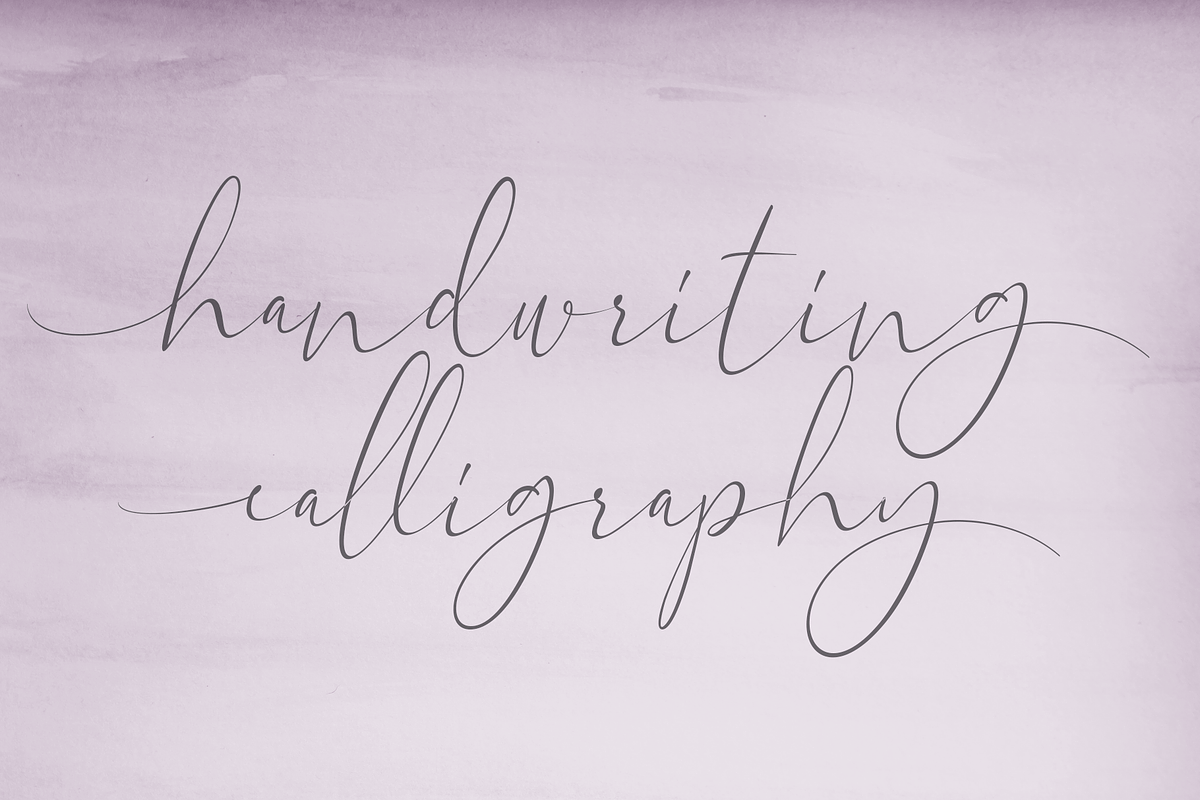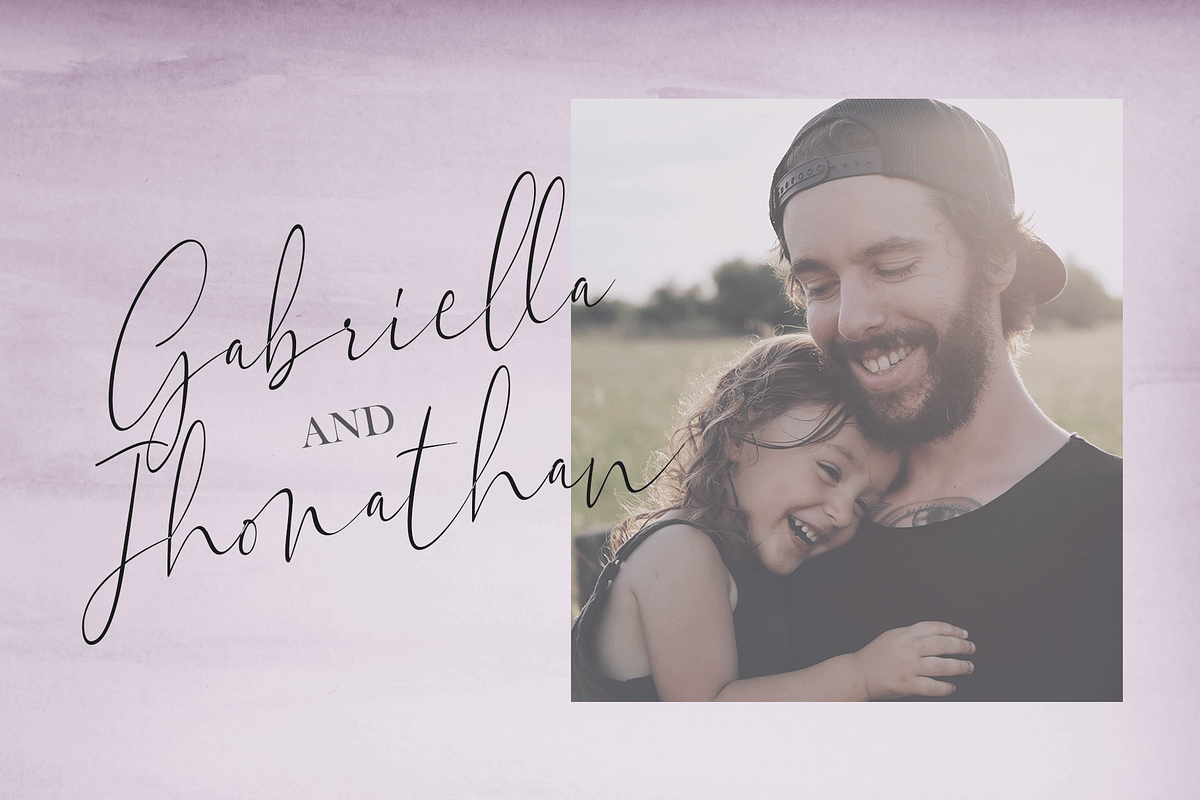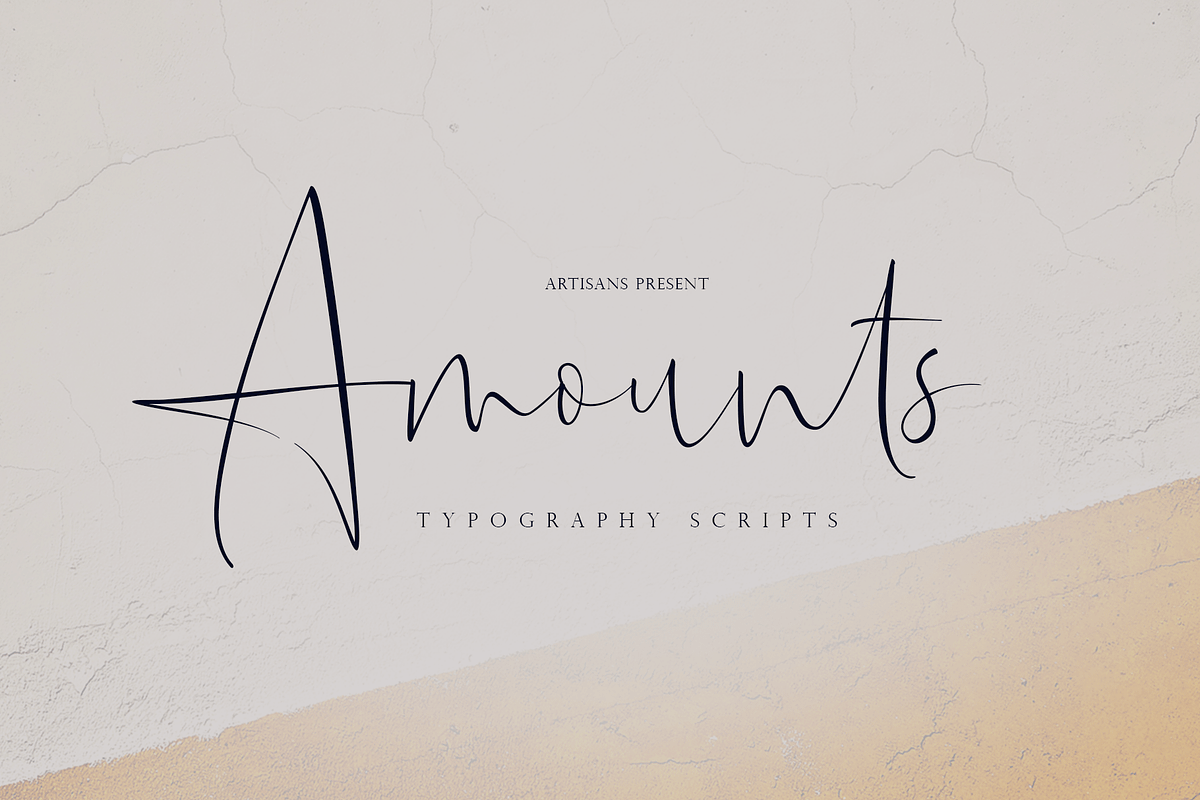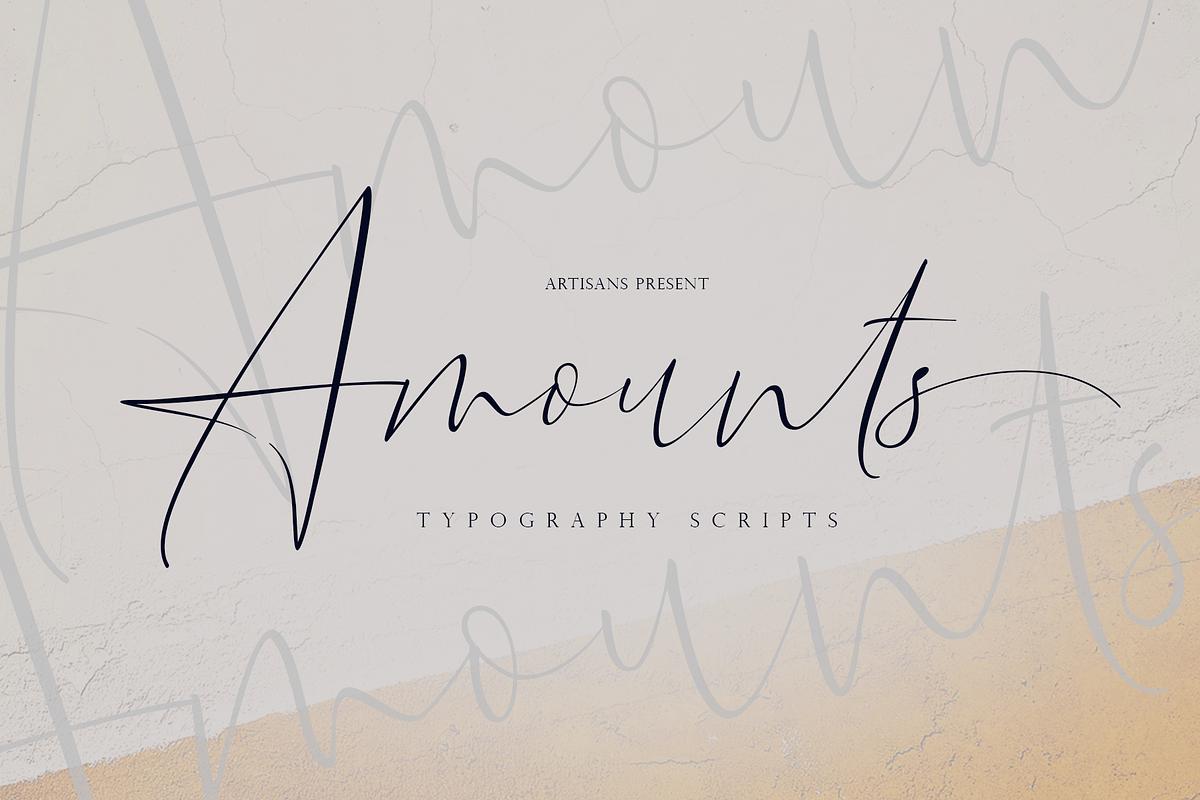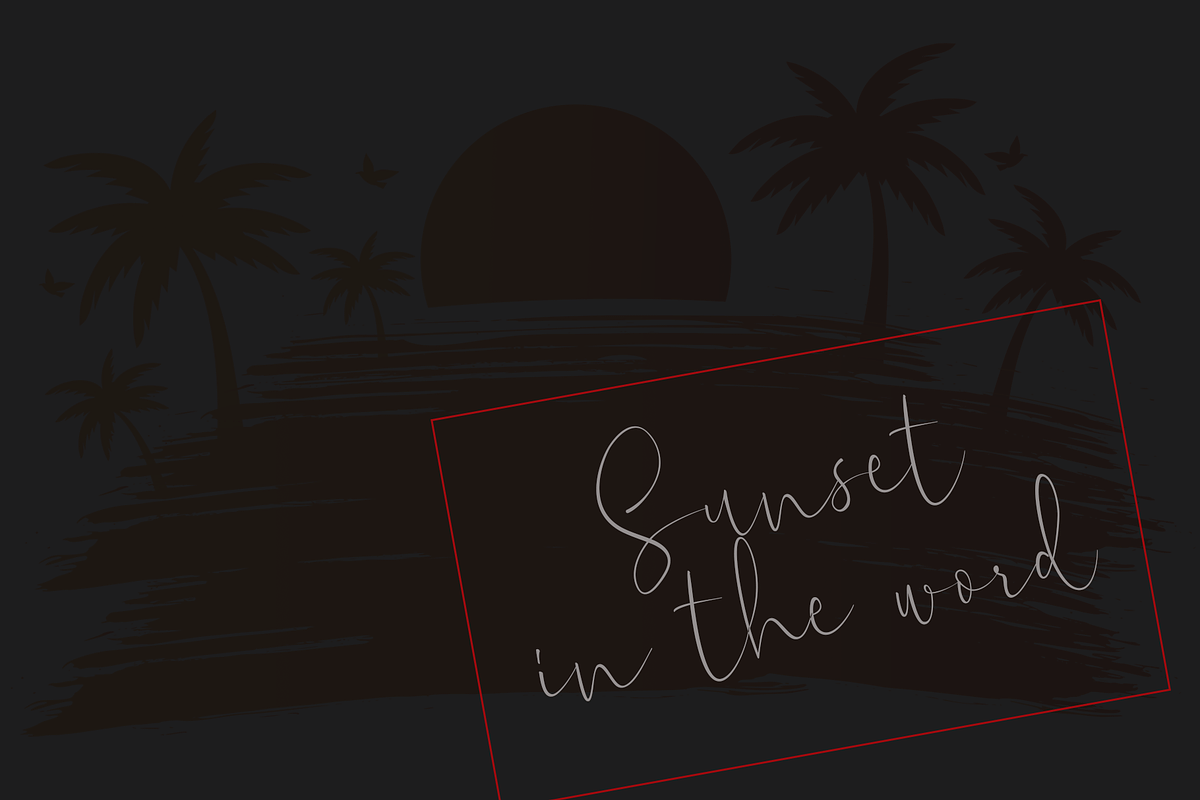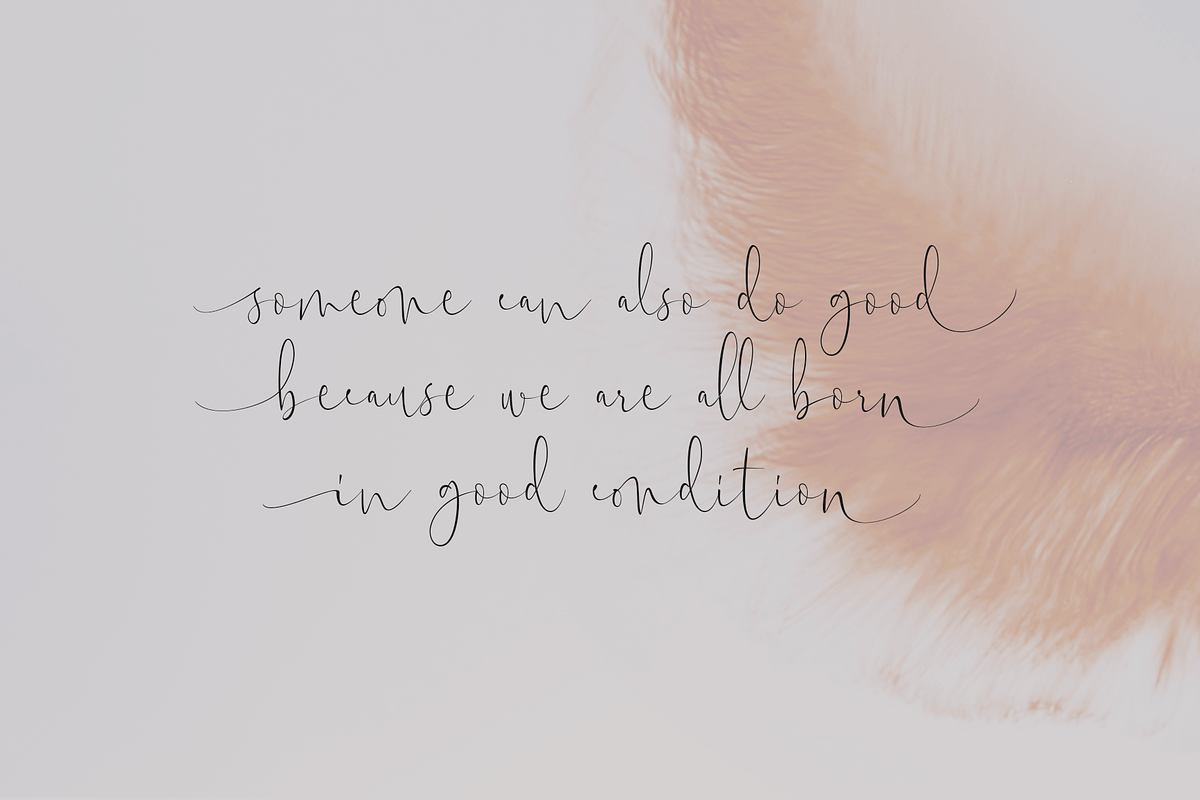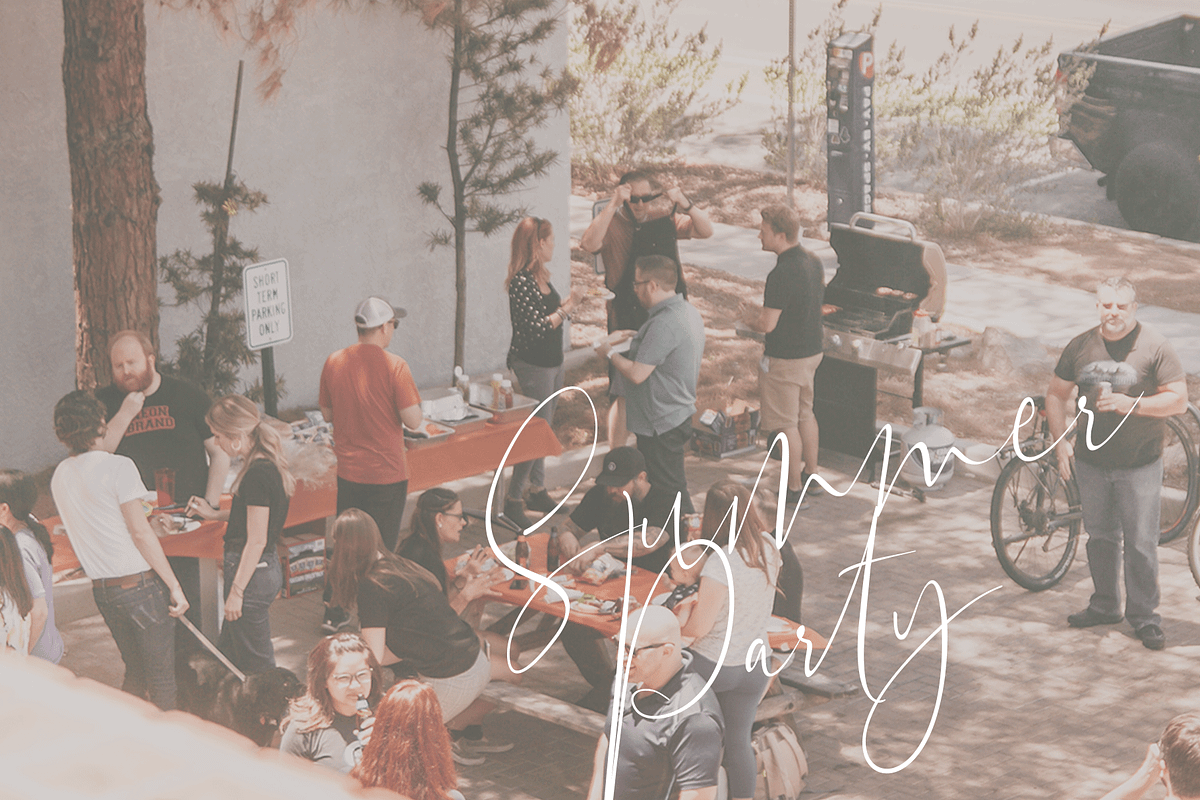
Amounts
Amounts a work that is purely a result of handwriting, has a natural characteristic. this is perfect for invitations, signatures, blogs, social media, business cards, product brands.
Amounts has Stylistic standard, Stylistic Alternates and ligatures. and includes uppercase and lowercase letters, numbers and punctuation marks.